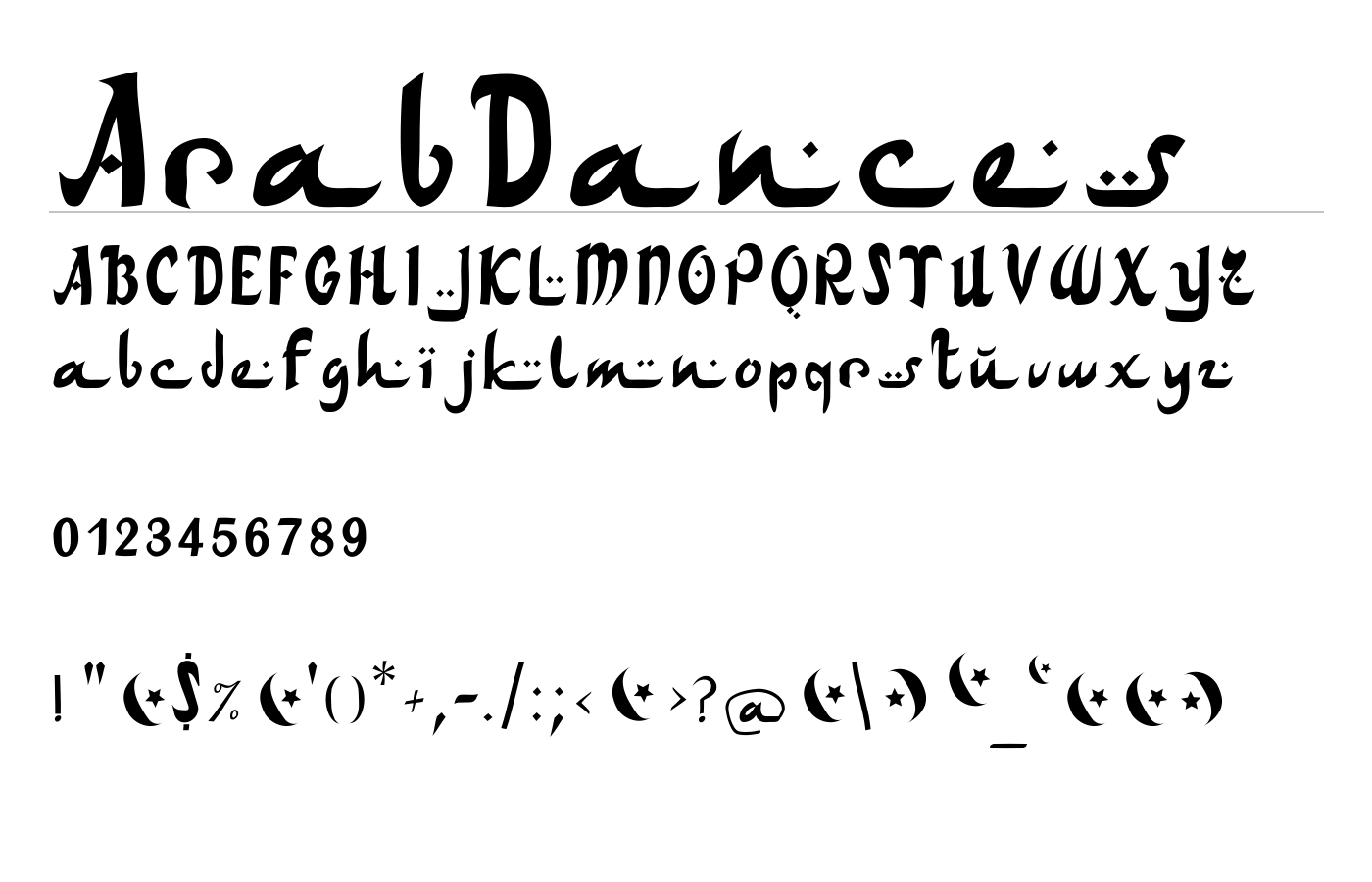
ArabDances is a decorative serif font with a playful and exotic feel, featuring irregular strokes and unique, calligraphic-inspired shapes that hint at Middle Eastern artistic influences. Its medium weight and moderately condensed letterforms make it ideal for eye-catching headlines and branding that seeks to evoke a sense of culture and elegance with a lively personality. This font works well in creative projects, packaging, and display uses where a distinctive and spirited style is desired.
ArabDances Font
About ArabDances Font